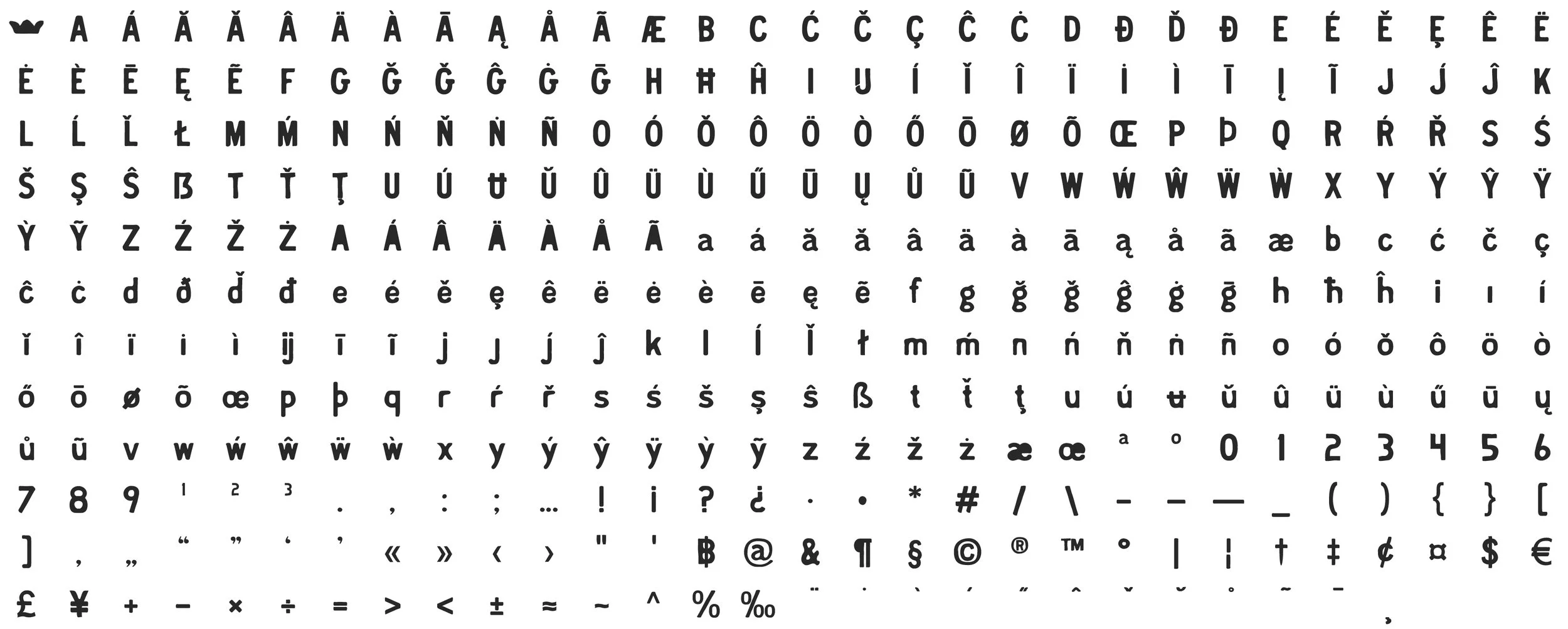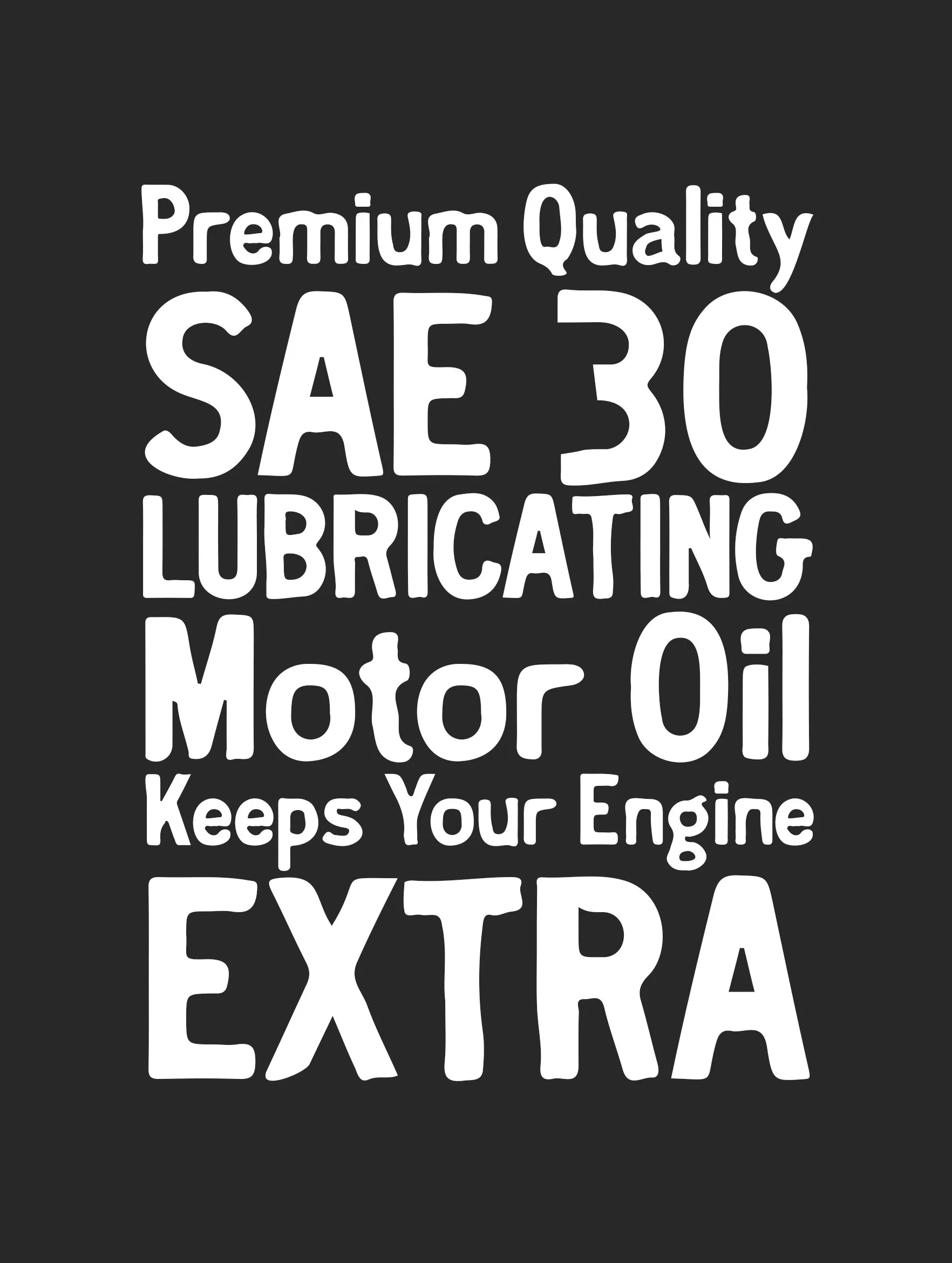
LT Motor Oil
Check out this grease monkey of a fontface that looks to have been sitting in a dusty garage for years. It's as naturally aged as that can of motor oil your grandpa swore by, dripping with the charm of rusted-out classic cars and faded roadside billboards. Each character looking like it’s weathered a few too many road trips, with each blemish telling stories of long-forgotten wild rides. So rev up your design engine and let LT Motor Oil take you on a nostalgia trip down the open road of retro typography.